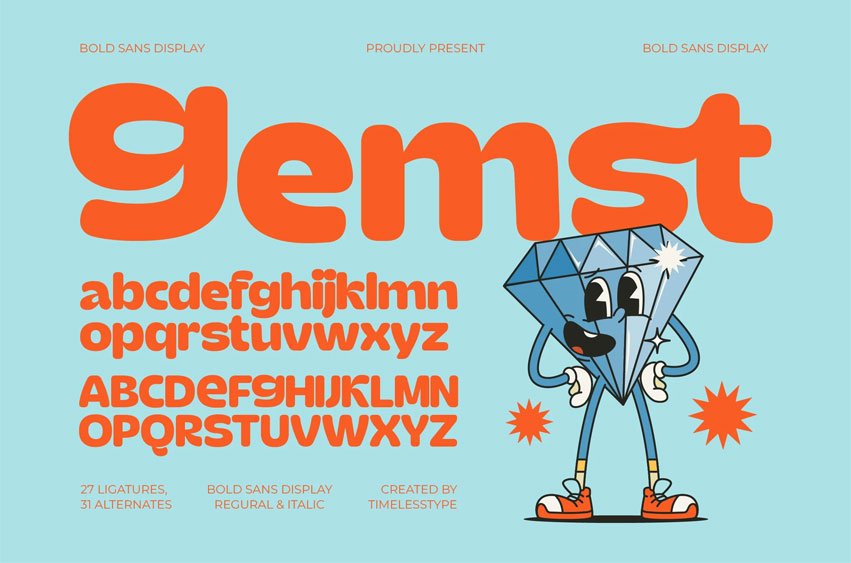
Gemst Font is a bold sans display font with a fun, modern, and energetic look. Its rounded shapes and thick proportions make it perfect for playful headlines, branding, packaging, posters, and social media graphics.
Featuring 27 ligatures and 31 alternates across regular and italic styles, Gemst adds a sense of friendliness and creativity to every design- ideal for projects that need a fresh, eye-catching, and dynamic appearance.